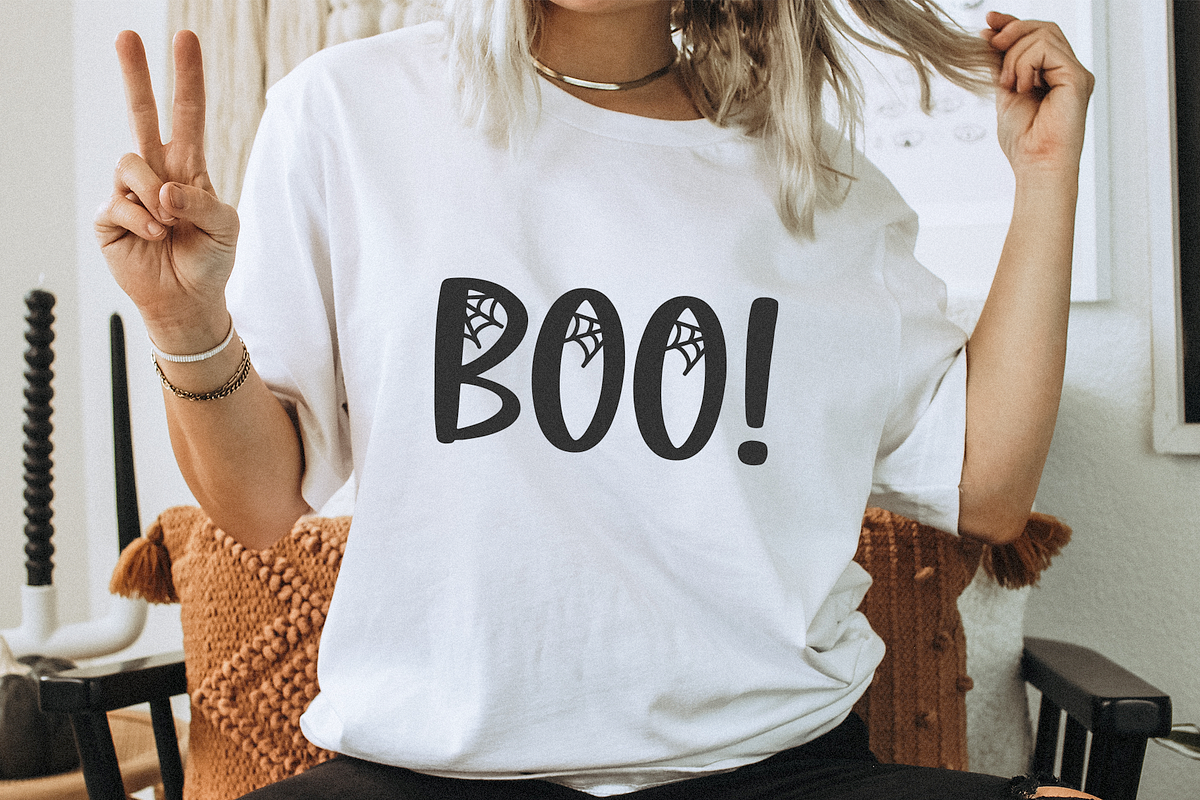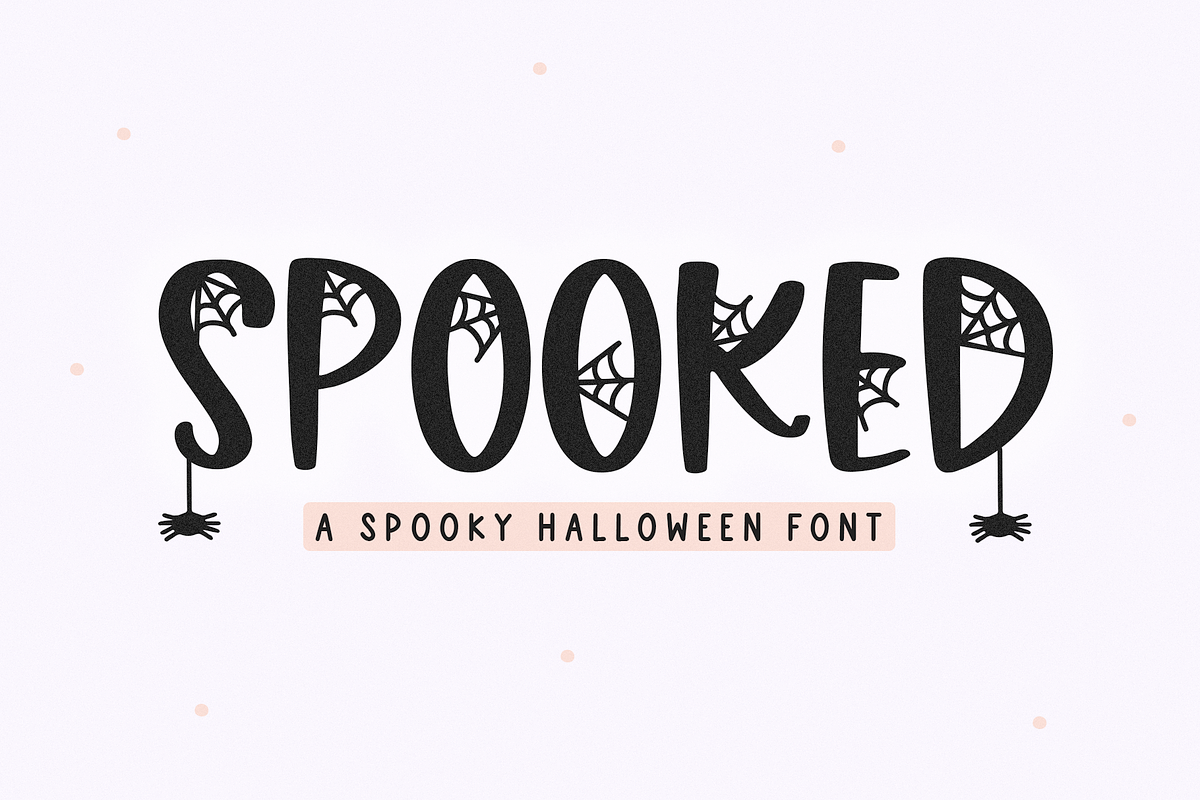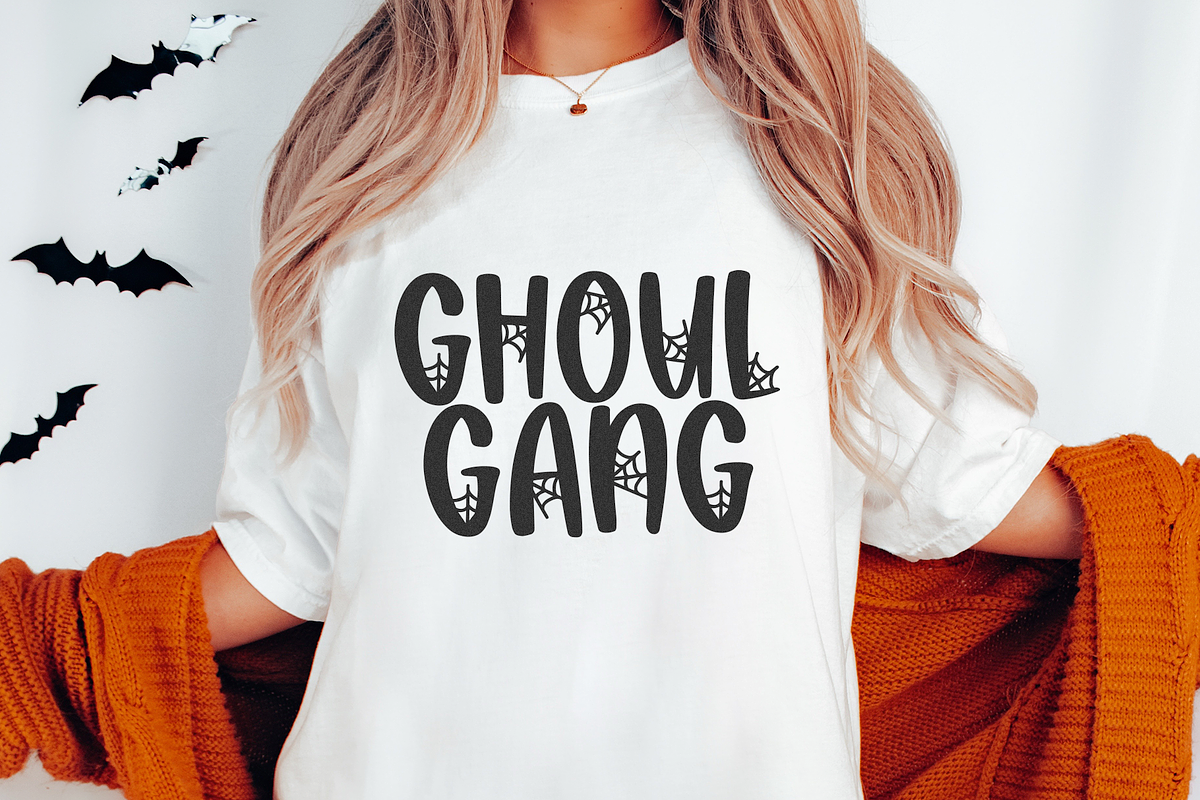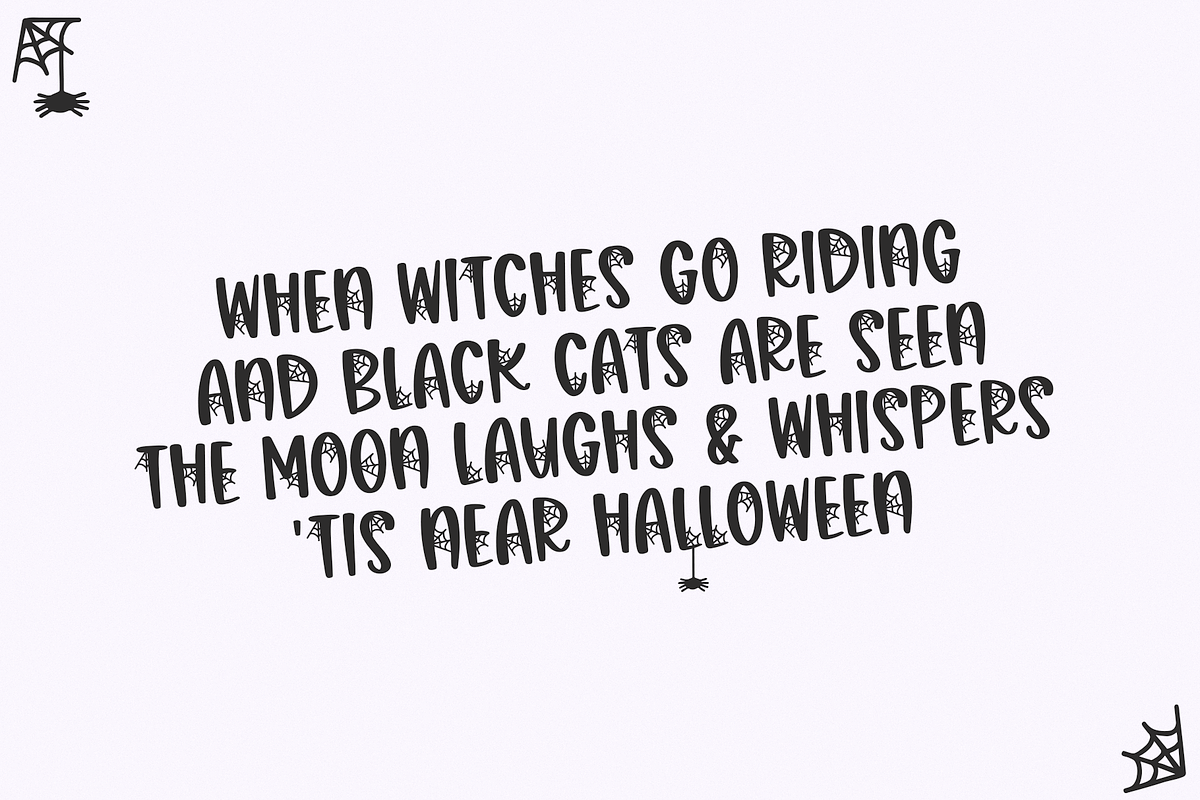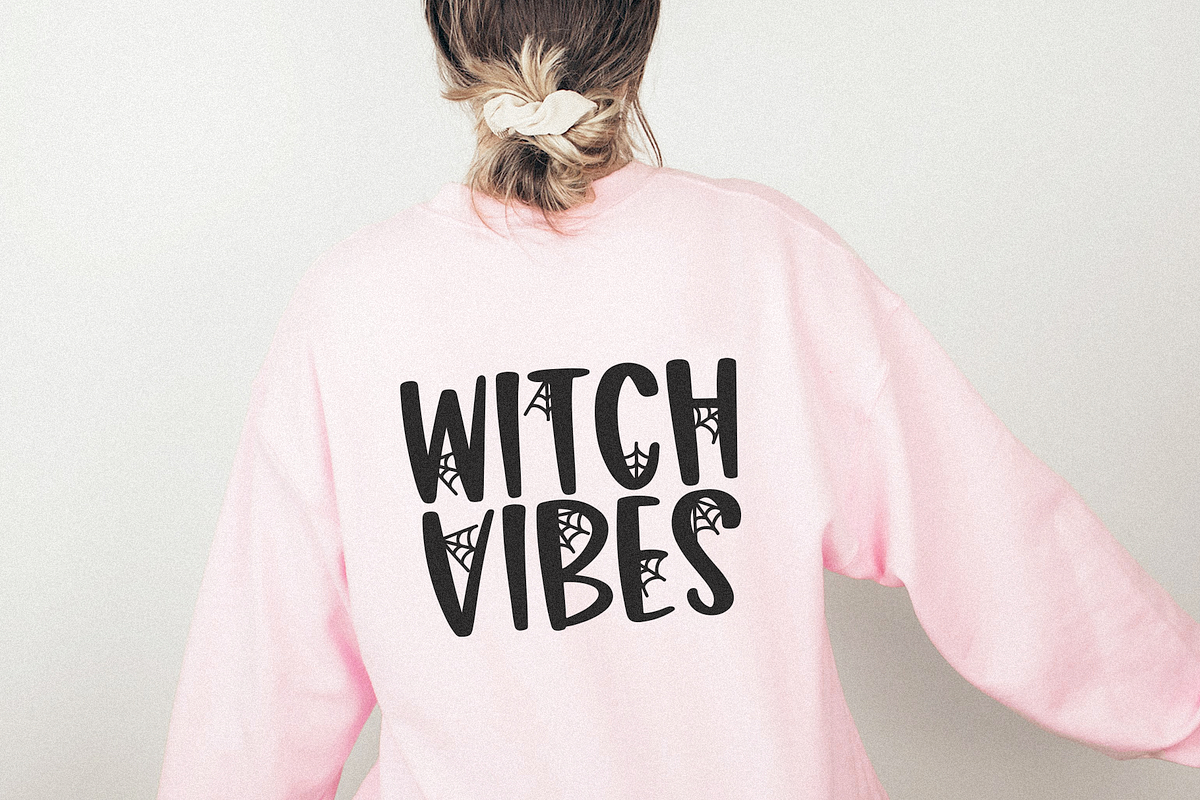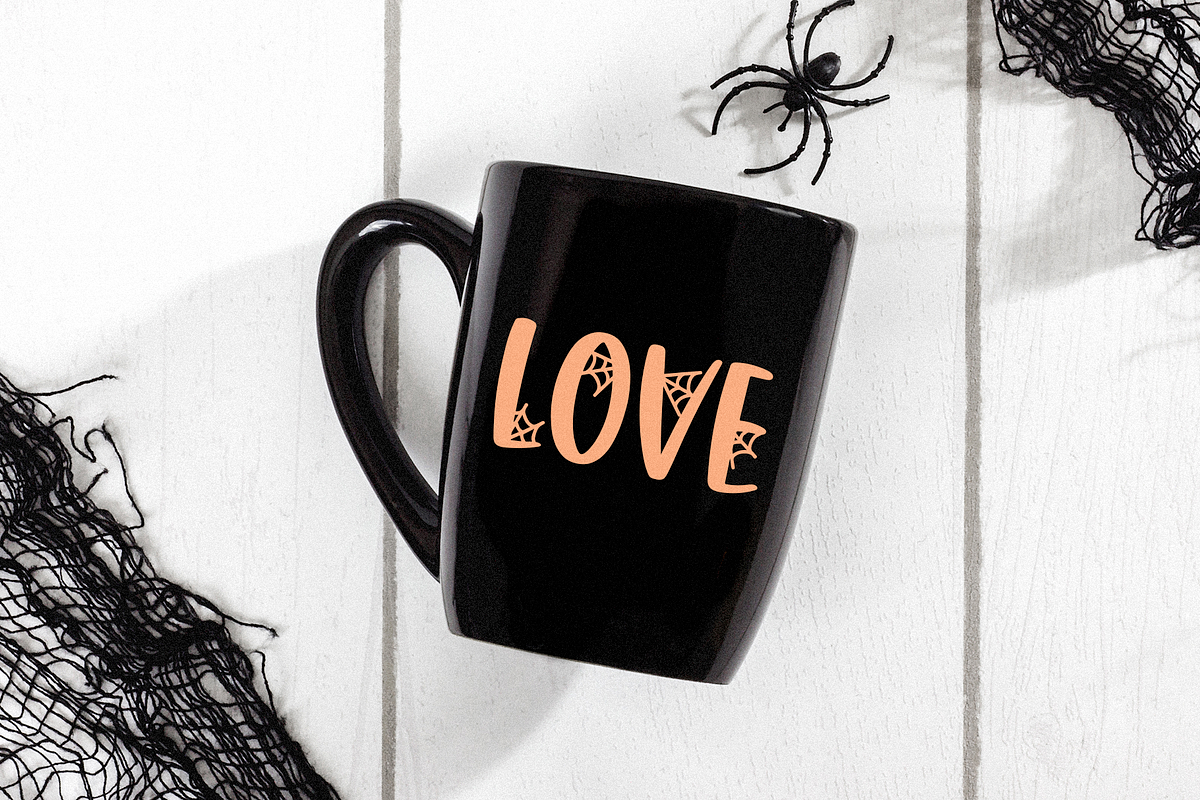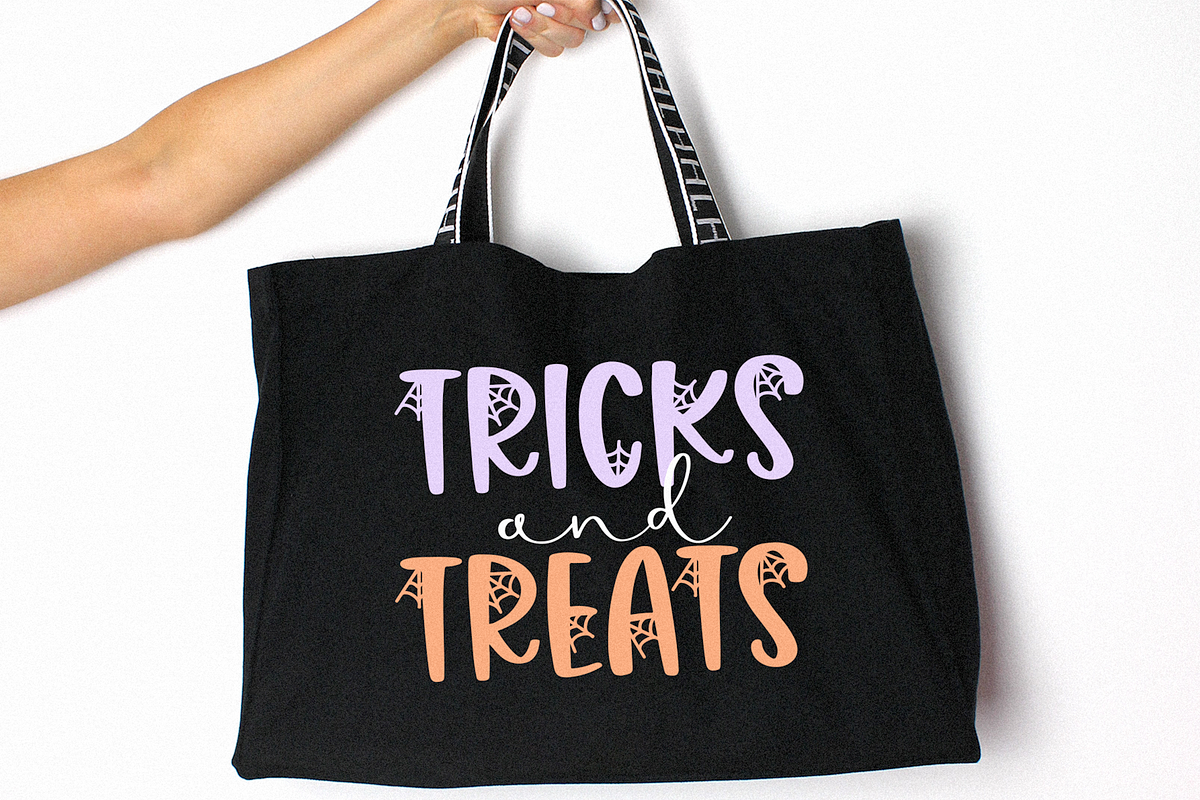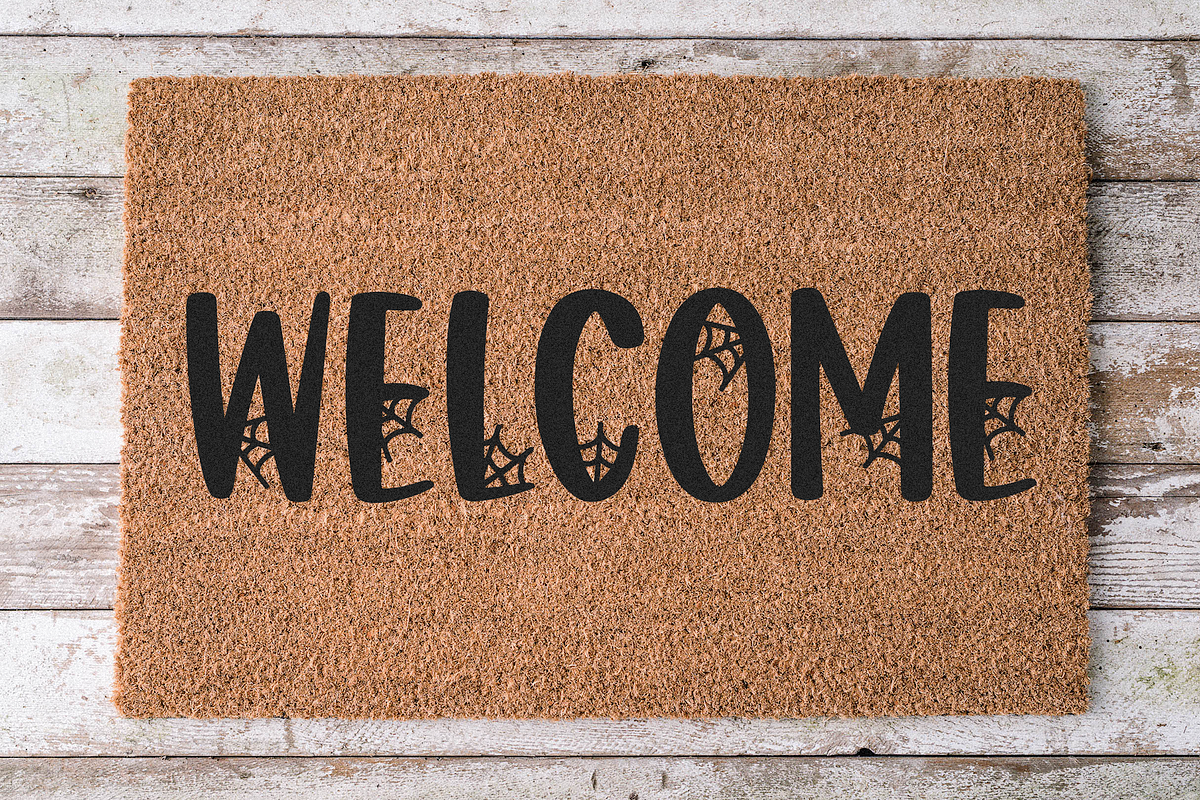
Spooked | Halloween Spider Web Font
Spooked is a fun Halloween font with spider web details.
This font is perfect for craft projects, svg files, shirts, mugs, invitations, stickers and more!